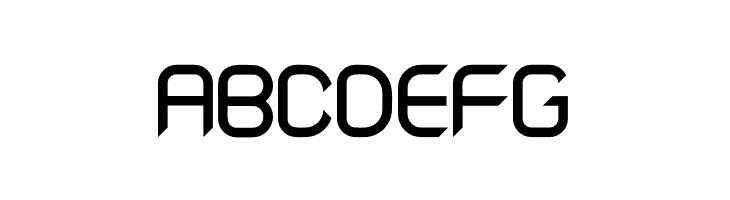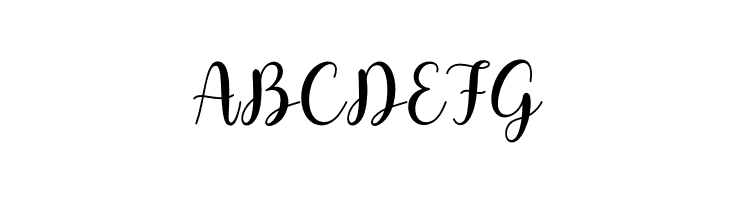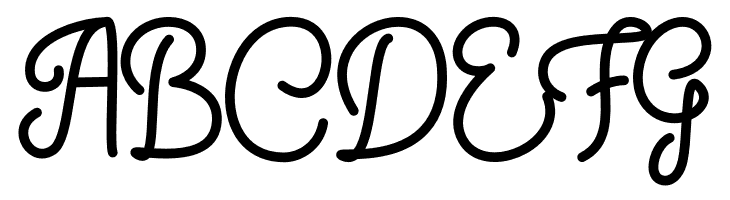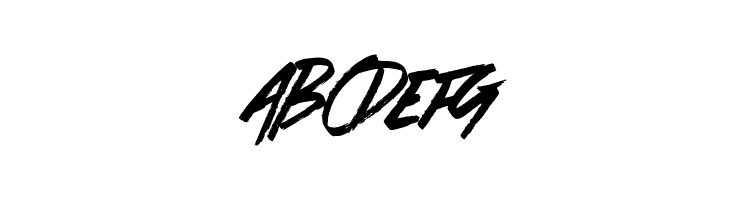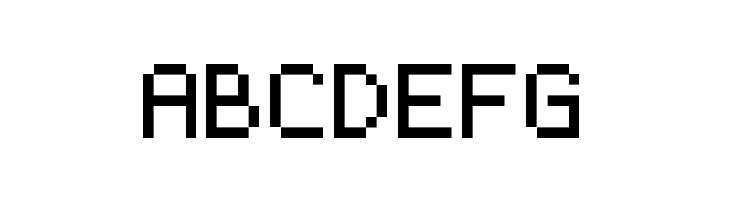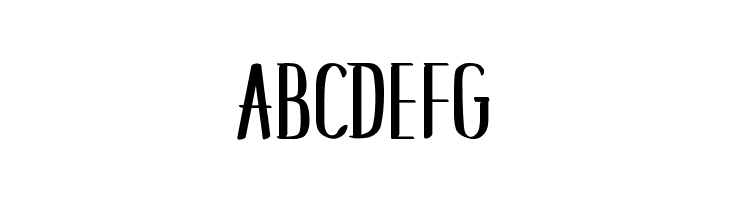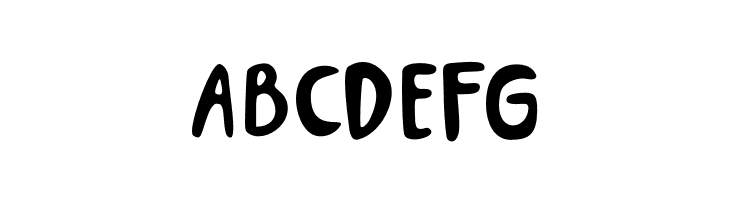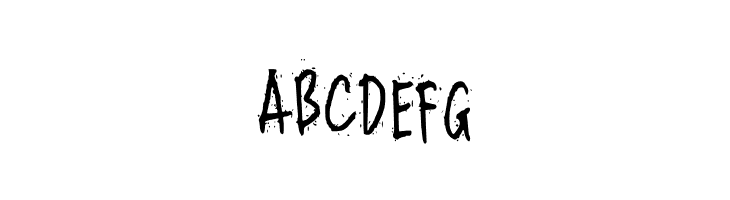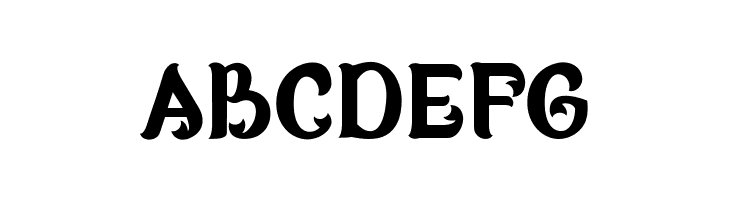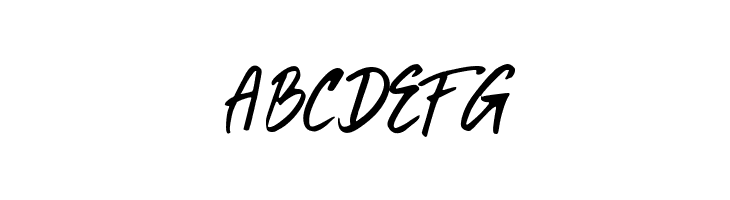
A dynamic and flowing script font with elegant cursive letterforms.
A modern, geometric font with clean lines and a futuristic style.
A playful, elegant cursive font with a handwritten style.
An elegant, flowing script font with a handwritten style.
A playful, whimsical script font with flowing, interconnected letters.
A bold, medieval-inspired font with sharp, angular serifs and a commanding presence.
A bold, brush-style font with dynamic strokes and a hand-painted appearance.
A pixelated, retro-style font with a blocky, digital appearance.
A playful and artistic font with elongated, narrow letterforms.
A playful, bold handwritten font with smooth curves and rounded edges.
A rugged, distressed hand-drawn font with an urban, gritty feel.
A bold, decorative font with high contrast and playful elements.
A dynamic handwritten font with fluid strokes and a natural flow.
A playful, whimsical script font with elegant loops and a hand-drawn style.
An elegant, decorative font with intricate swirls and flourishes.
A lively, expressive script font with elegant, flowing strokes.
A lively and dynamic script font with fluid, continuous strokes.
A lively, cursive font with dynamic strokes and elegant flow.
A playful, handwritten font with a casual and energetic style.
A sophisticated script font with fluid, cursive strokes and elegant flourishes.